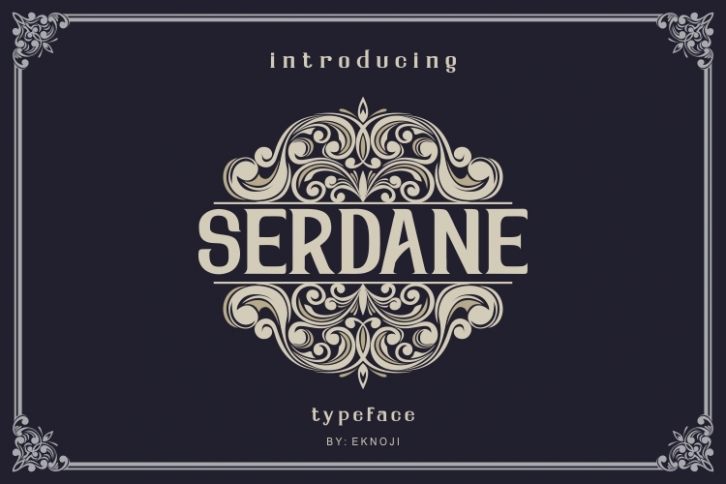
Serdane Typeface & Vector is a great font that was designed by Eknoji. Imagine the amount of combinations you can create using this font! The archive is 16.10 MB and it was released on July 22, 2019. Serdane Typeface & Vector looks beautiful on wedding invitations, greeting cards, logos, posters, labels, t-shirt designs, logos, business cards and is perfect for use in ink or watercolor works, fashion, magazines, packaging and food menus, children's books and more!